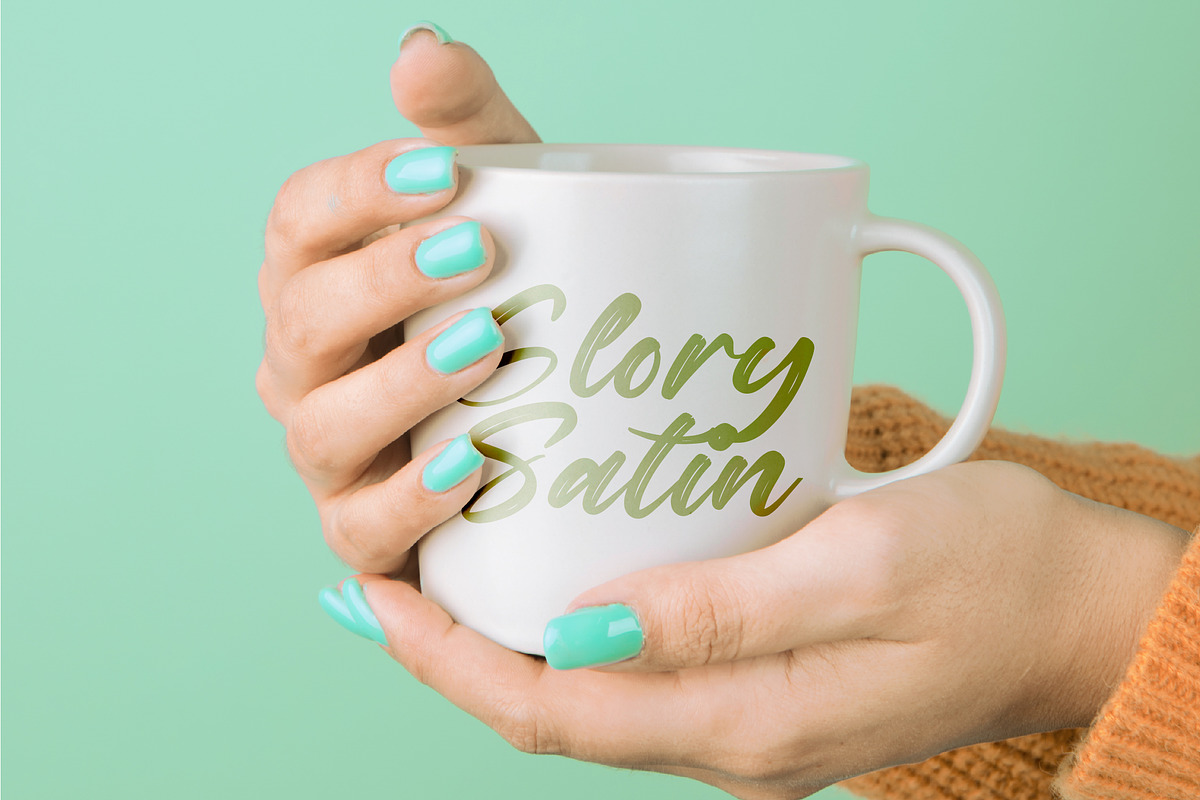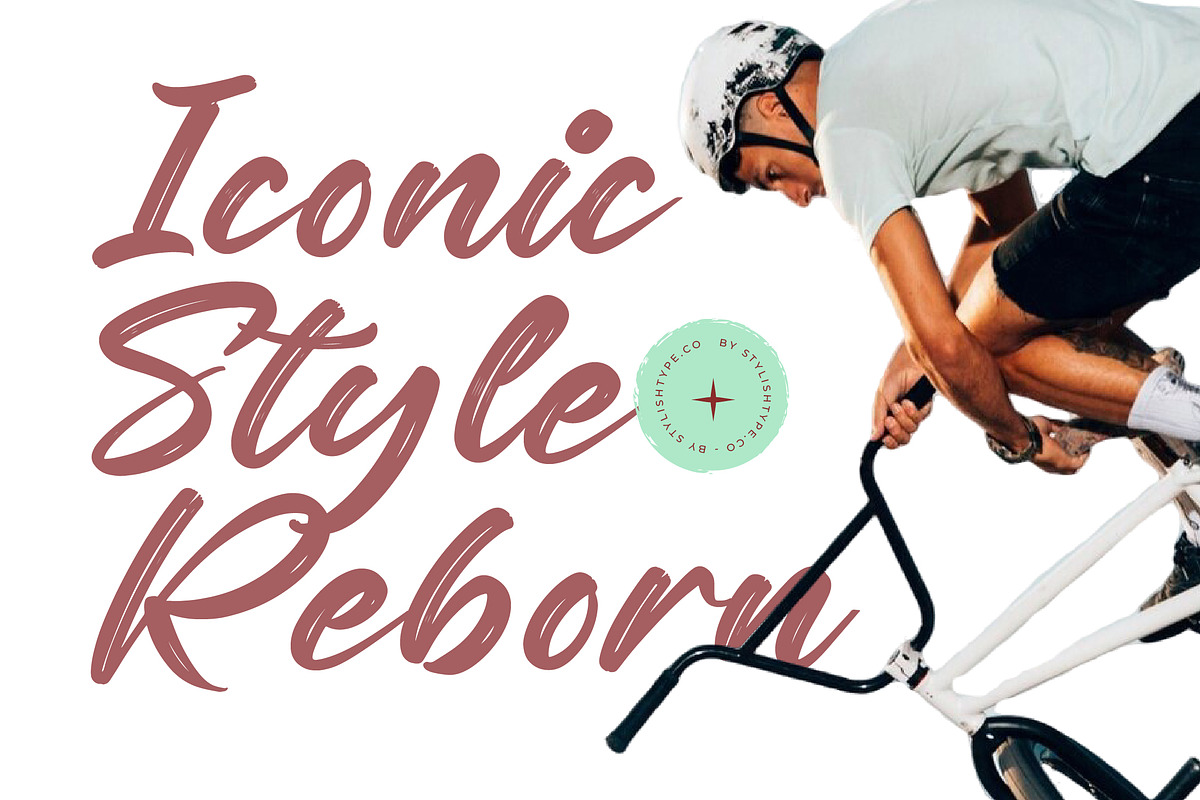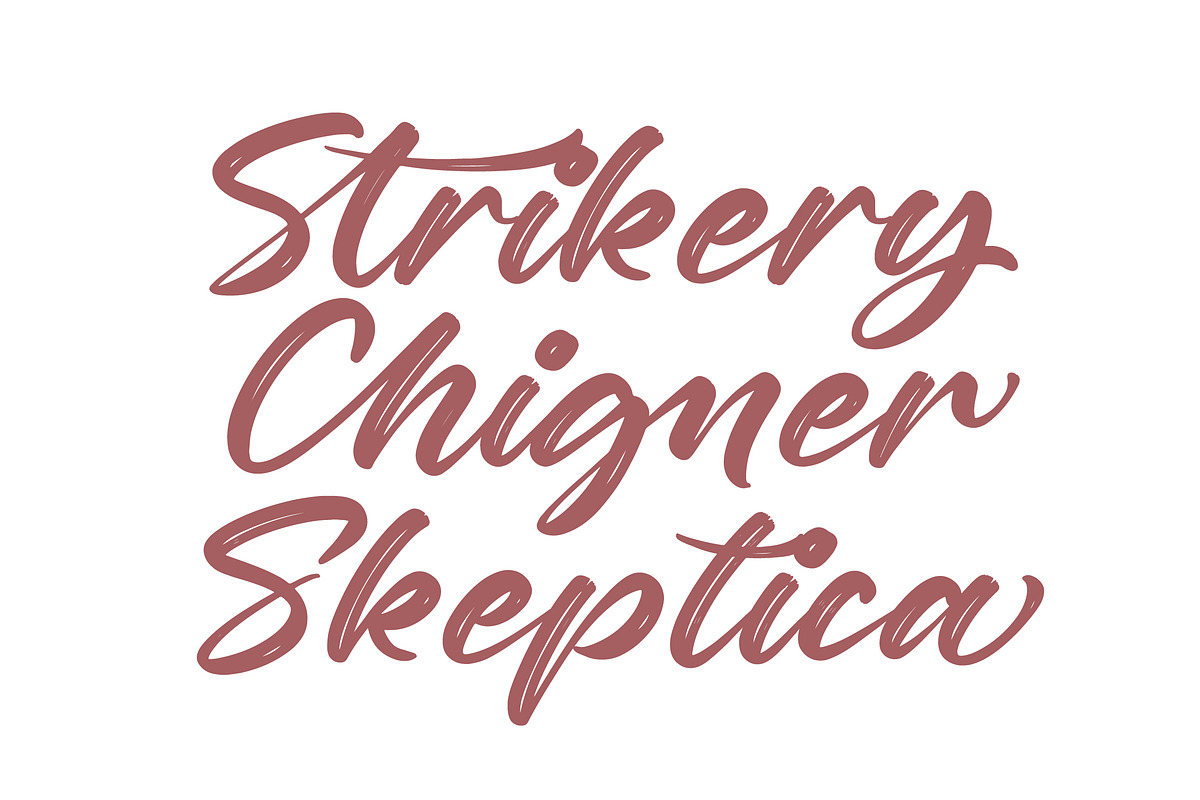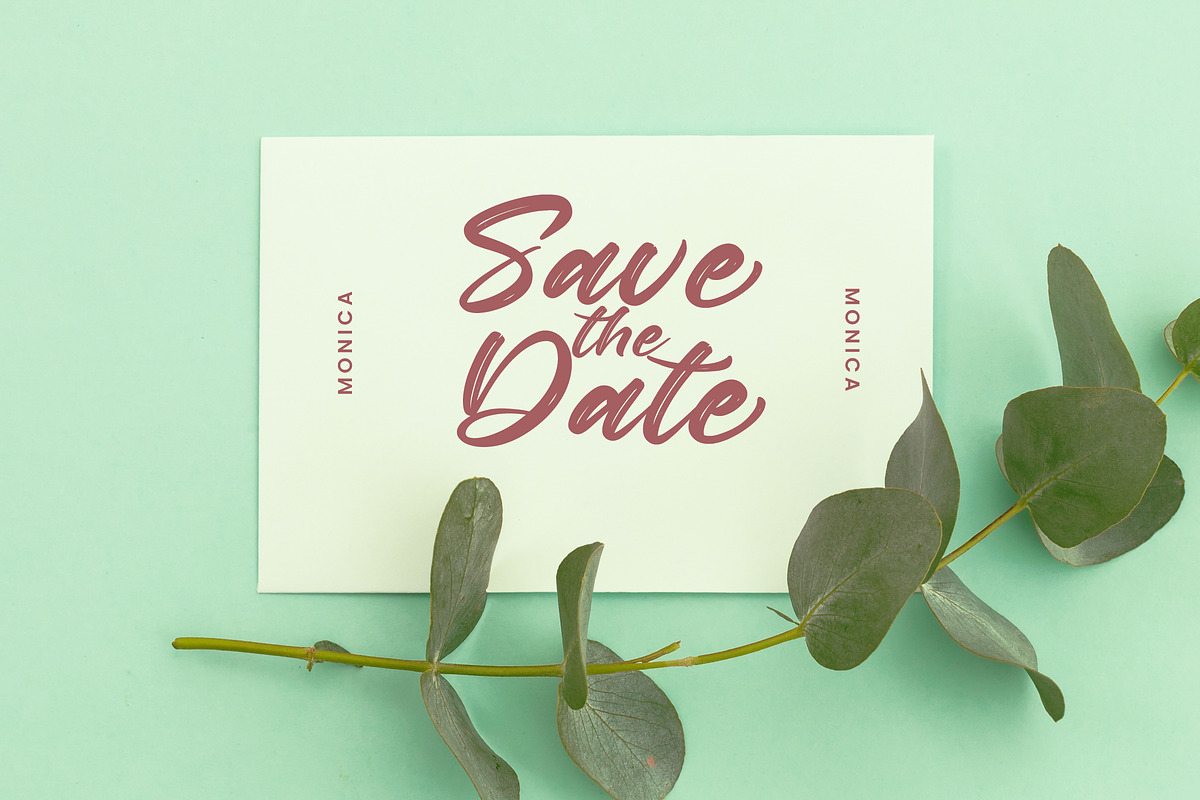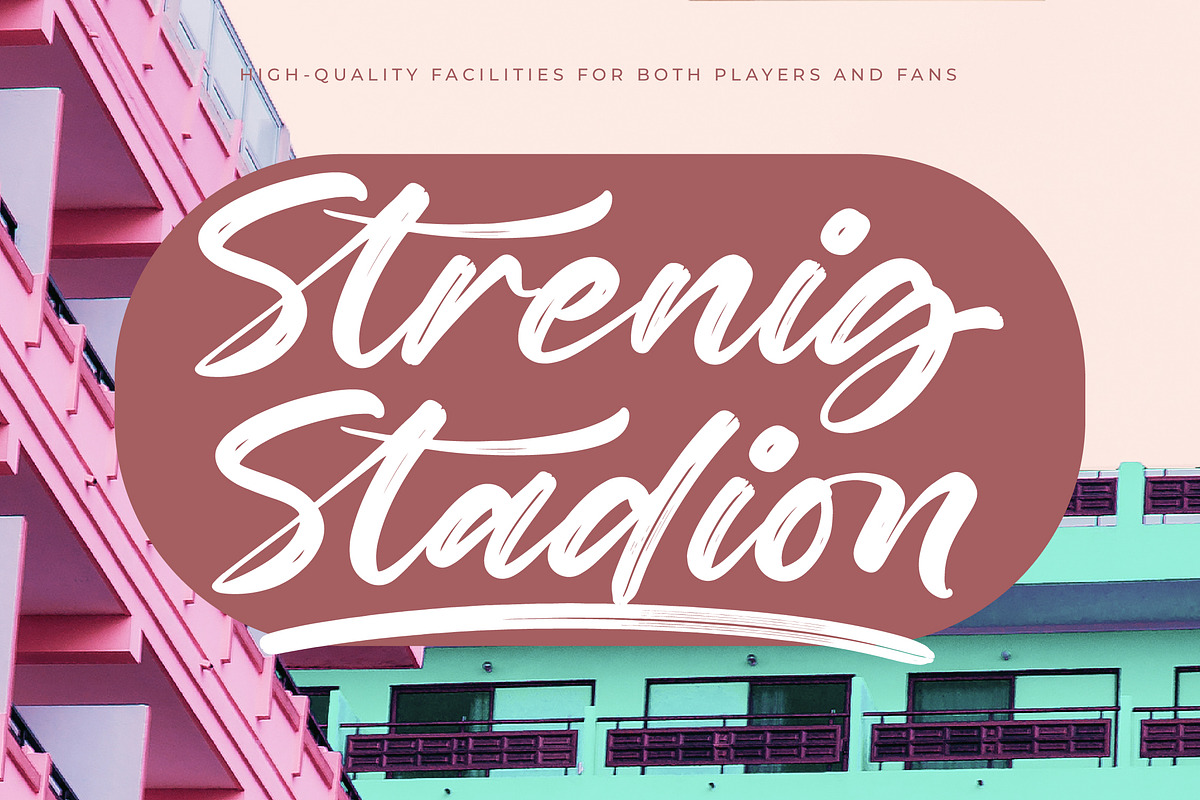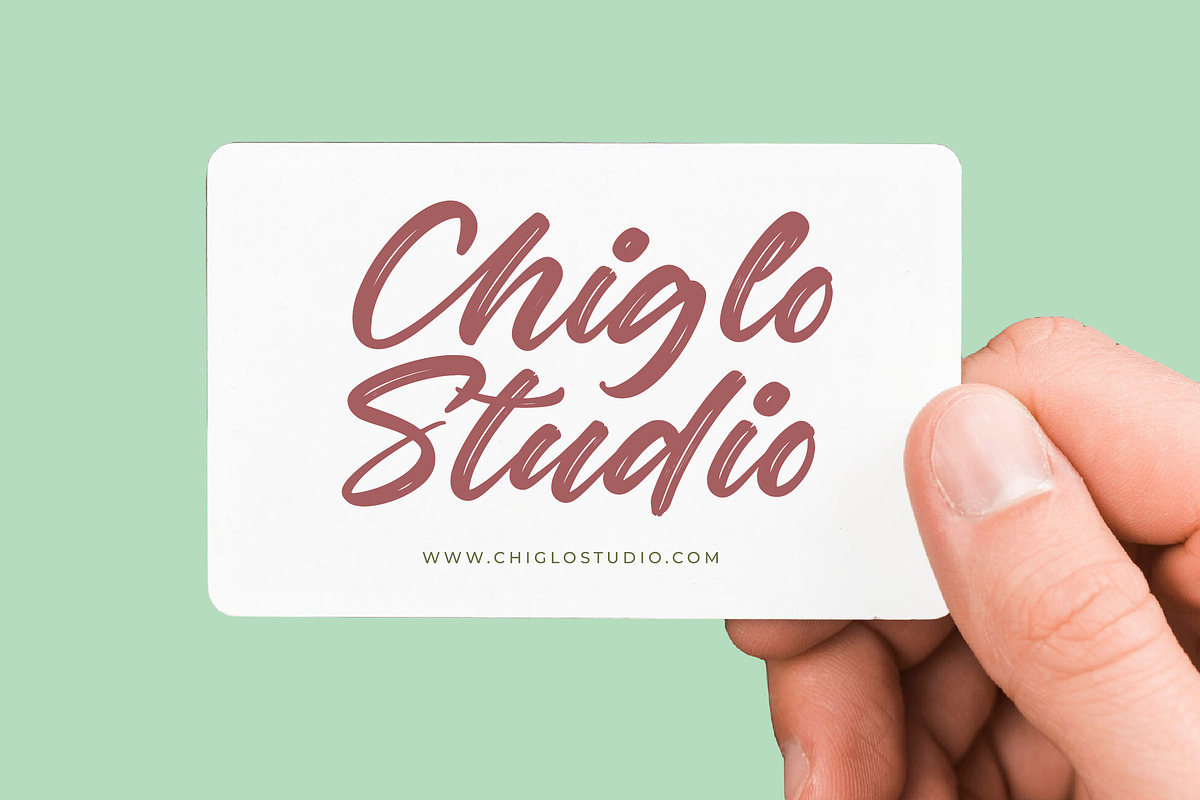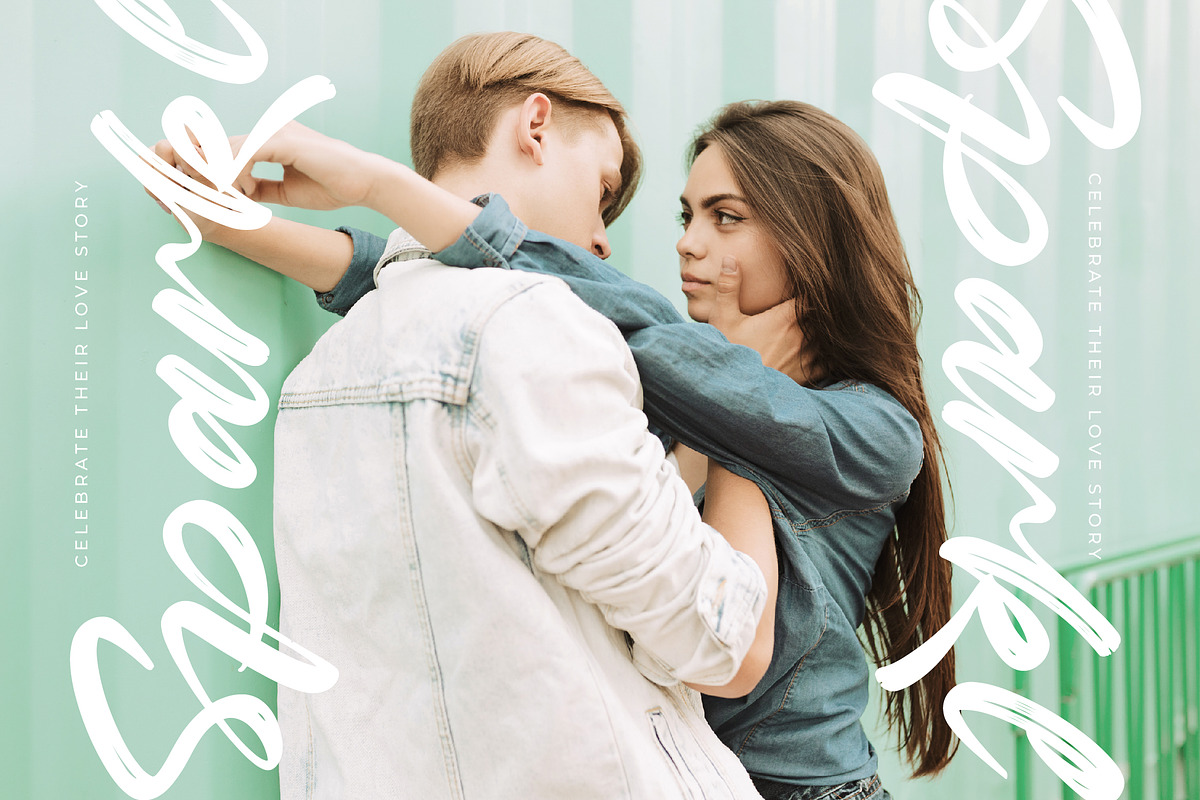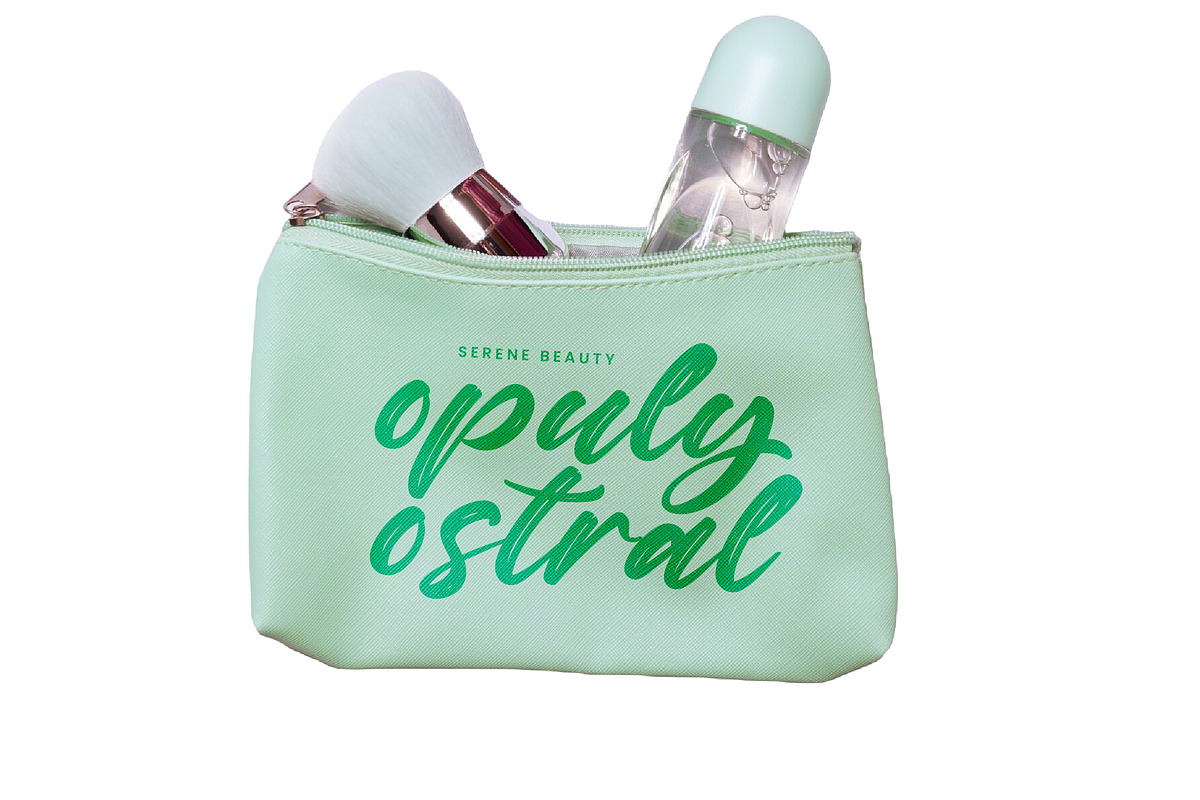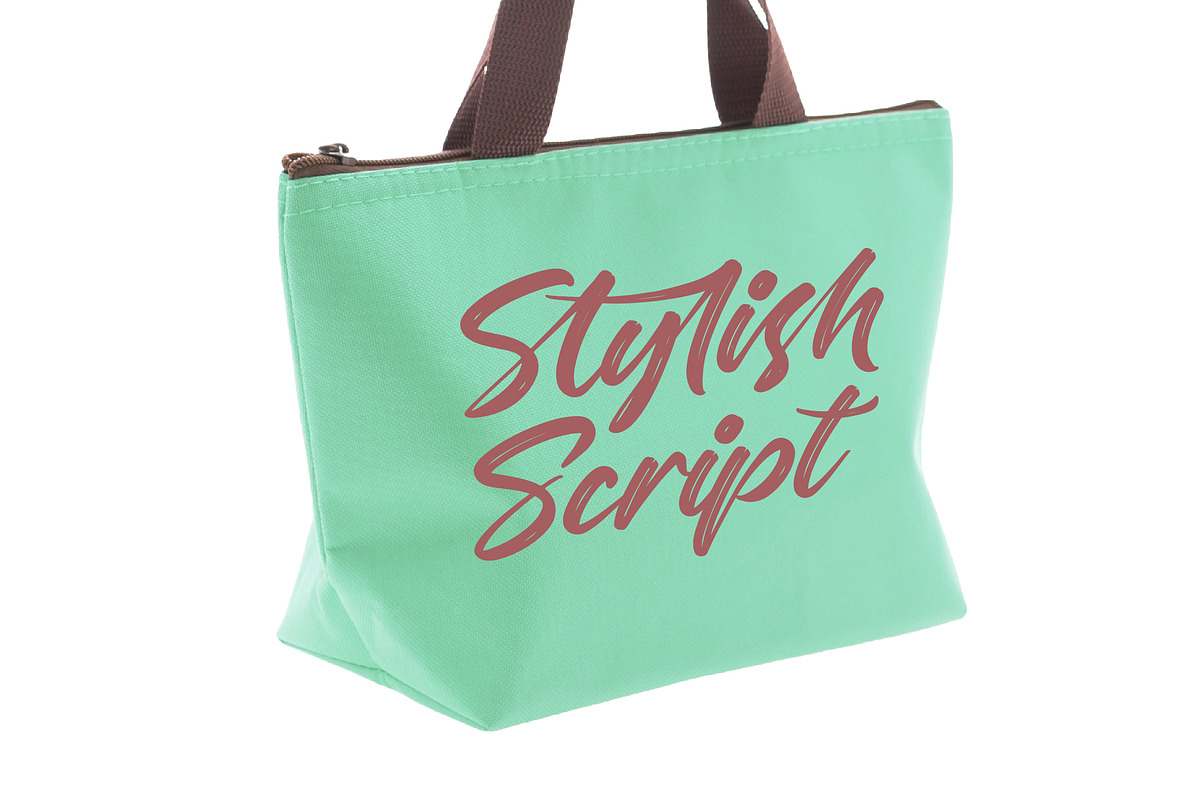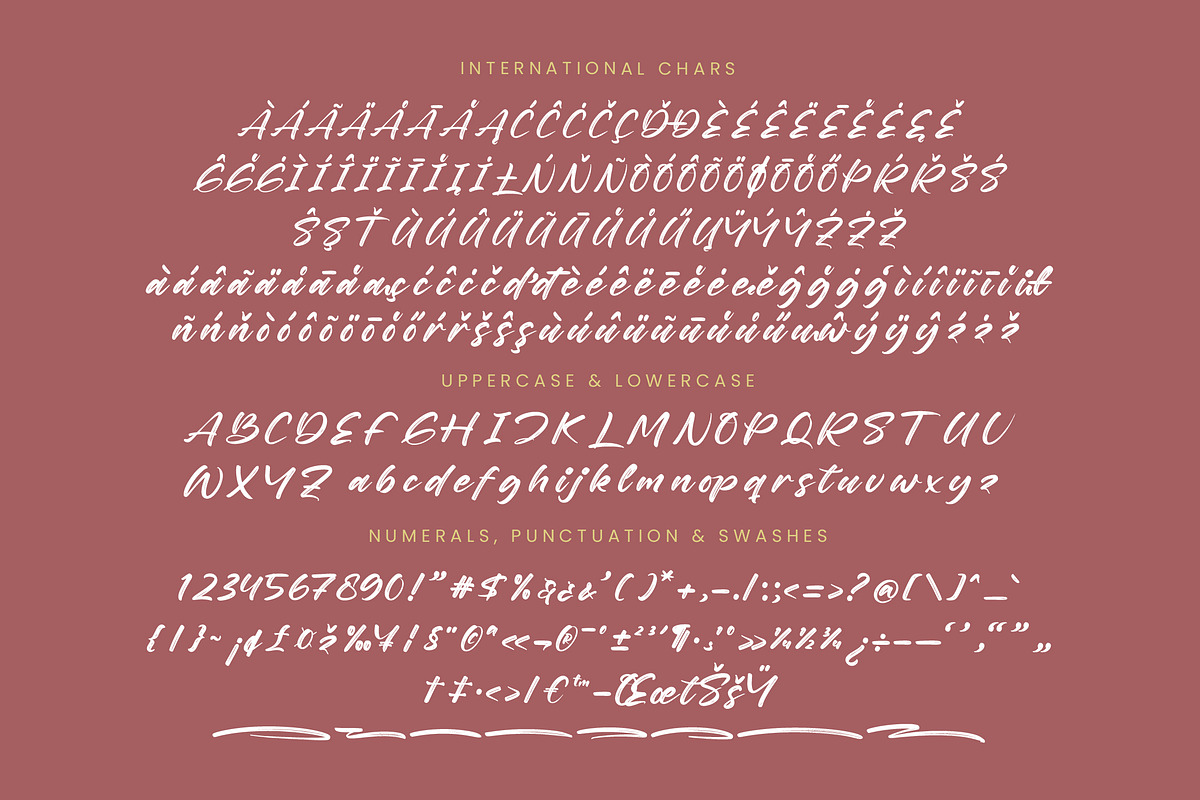
Nighty Styling Modern Brush Font
Nighty Styling - Modern Brush Font , from Stylishtype.Co , Suitable for any projects such as: logos, branding projects, homeware designs, product packaging, mugs, quotes, posters, shopping bags, t-shirts, book covers, name card, invitation cards, greeting cards, label, photography, watermark, special events, and all your other luxury and beautiful projects that need a Luxury Script taste.
- 171 Ligature 26 Alternates & 8 Swashes